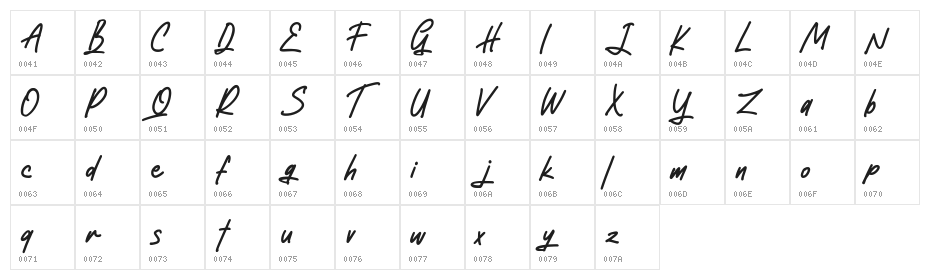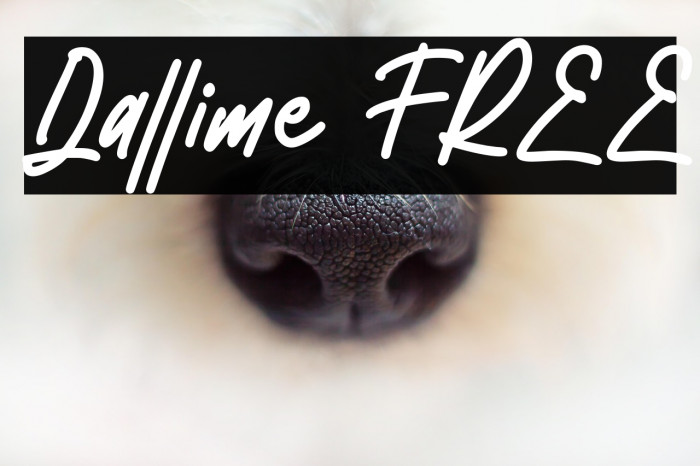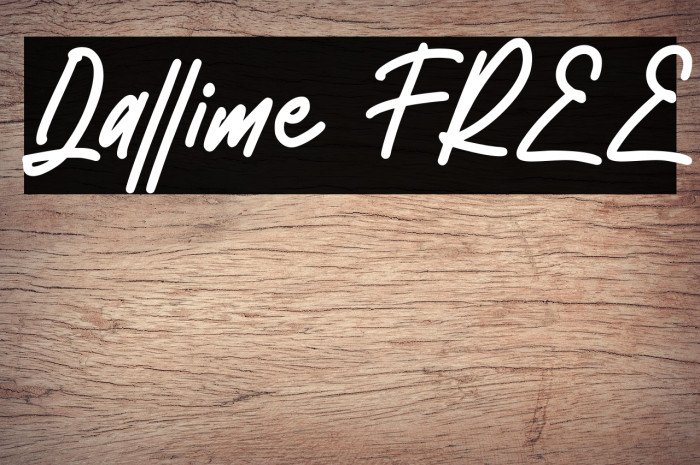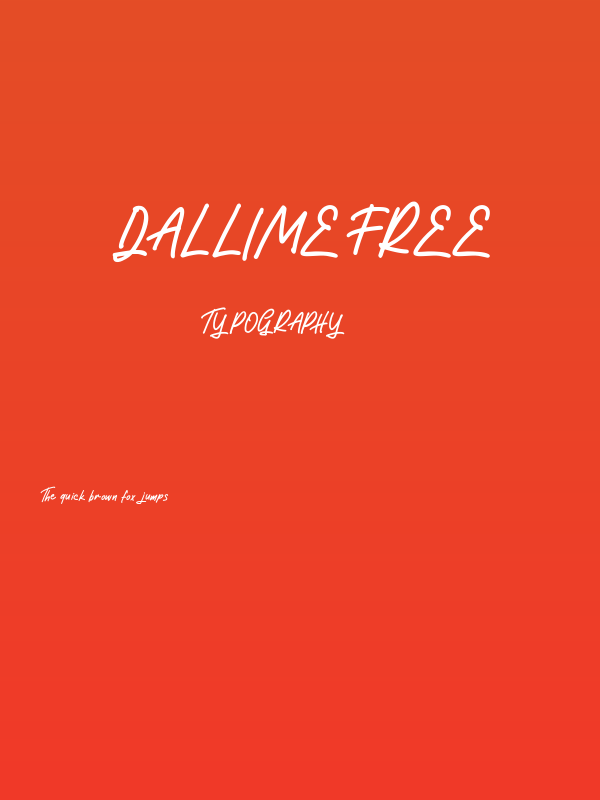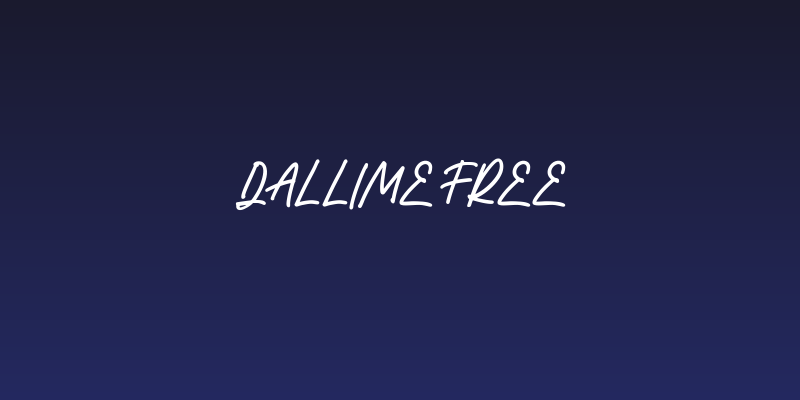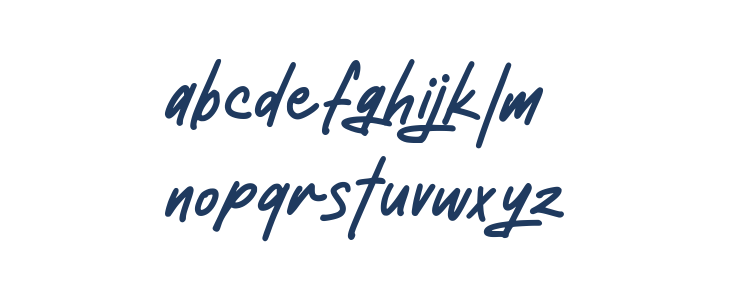
Dallime FREE Font
Dallime FREE Description
This font exudes a dynamic and energetic style, characterized by its handwritten appearance. The letters are fluid and connected, giving a sense of movement and spontaneity. The uppercase and lowercase letters maintain a consistent flow, with slightly exaggerated curves and loops that add to its playful nature. The strokes are bold and confident, with a medium contrast that enhances readability while retaining a casual aesthetic. This font is perfect for projects that require a personal touch, such as invitations, greeting cards, or creative branding.
| Proposed Projects | Ideal for invitations, greeting cards, creative branding, and personal projects. |